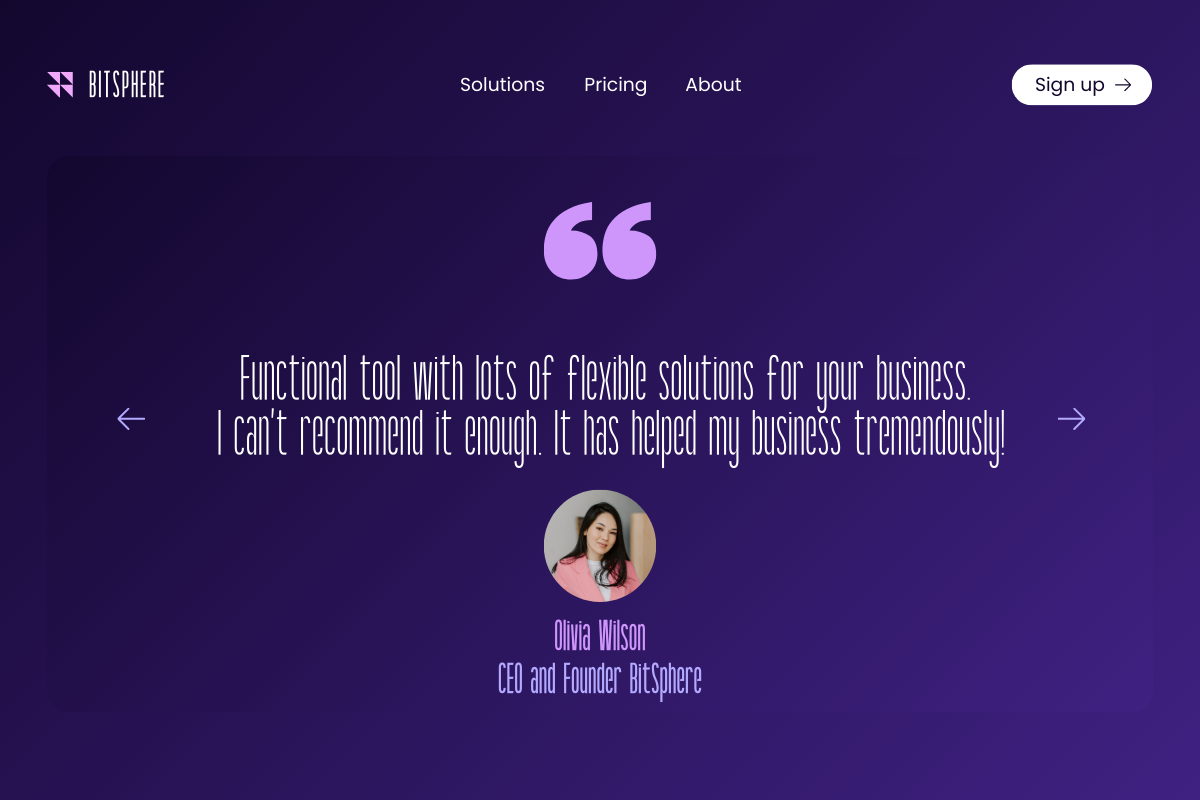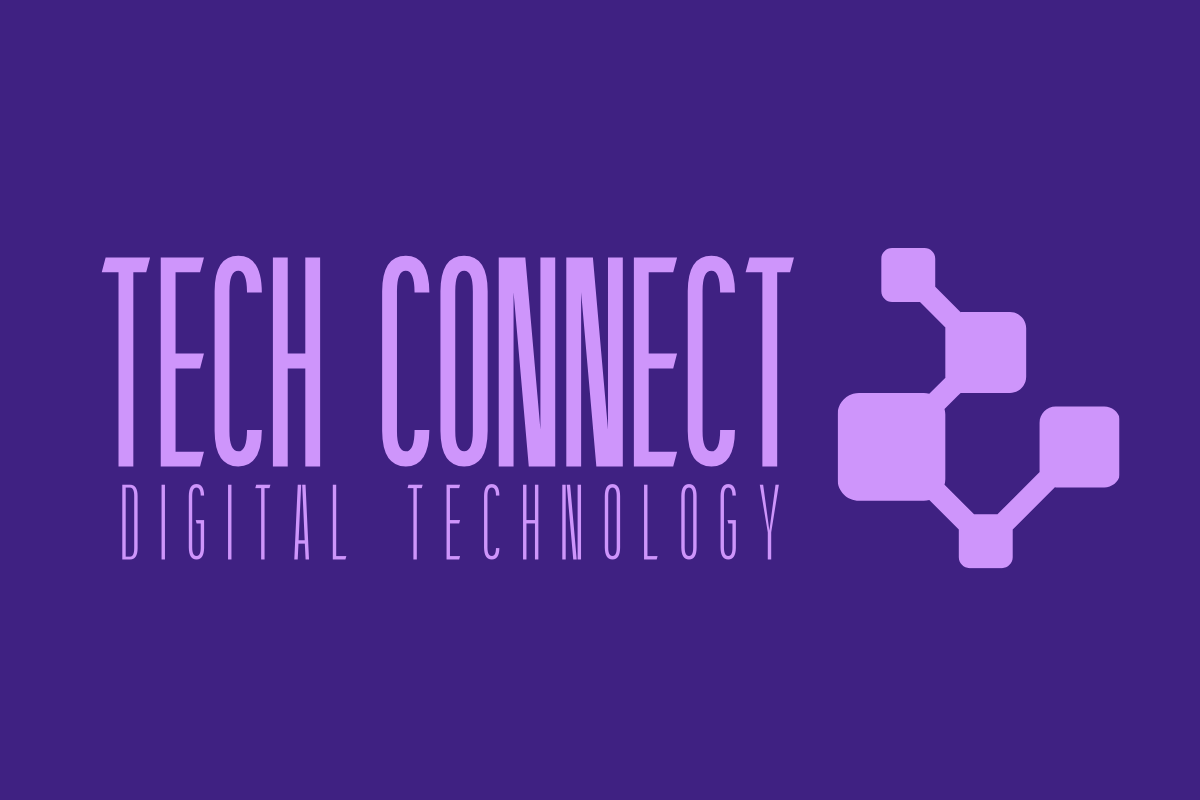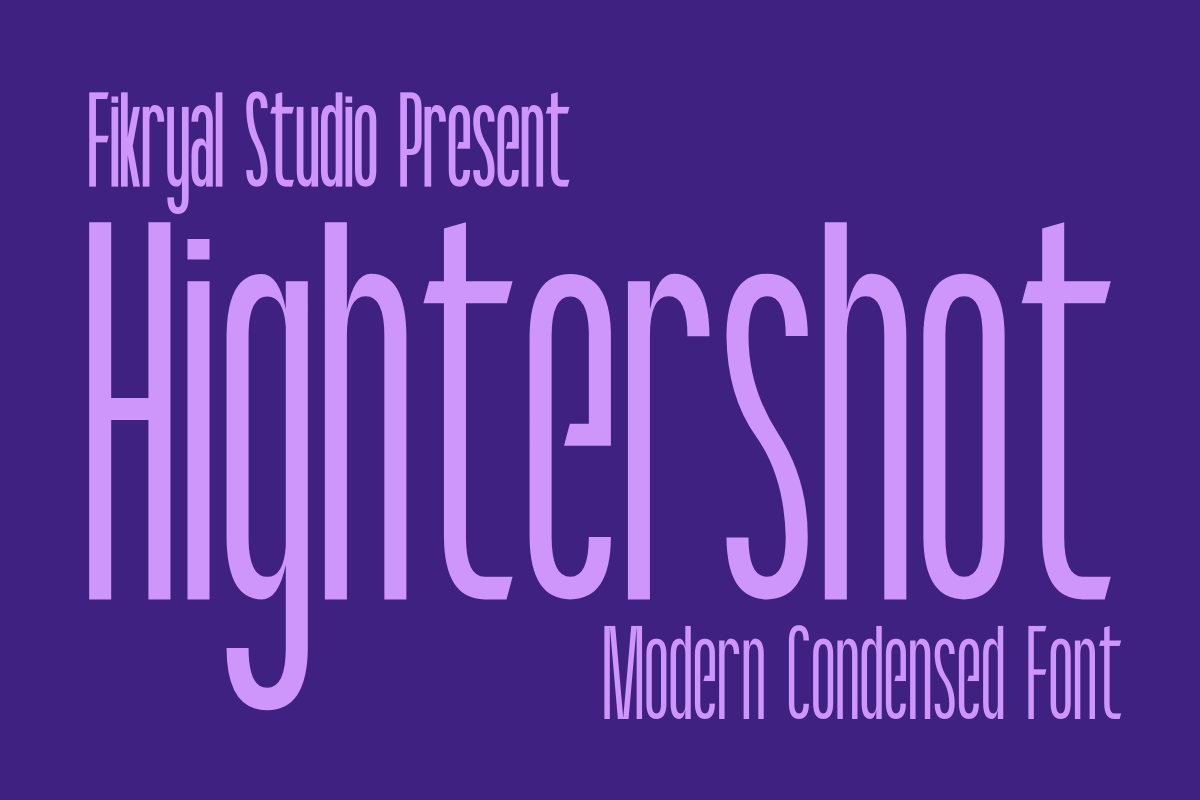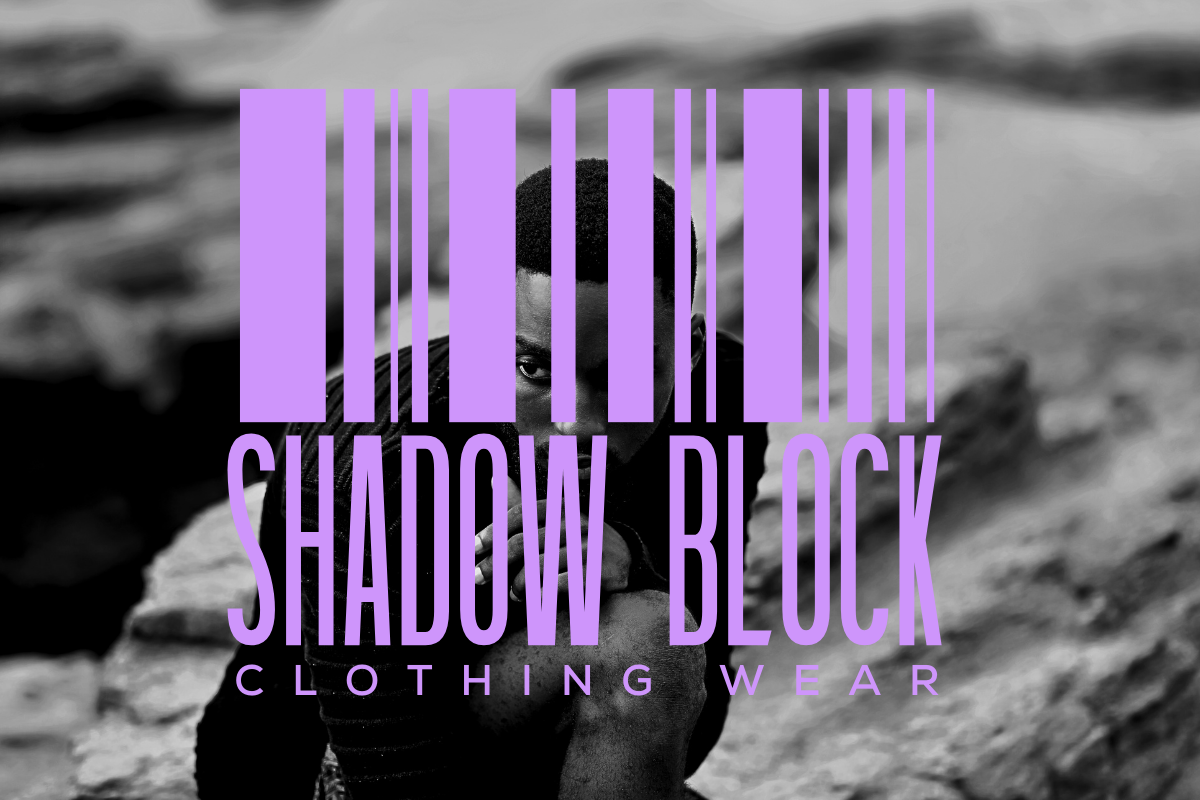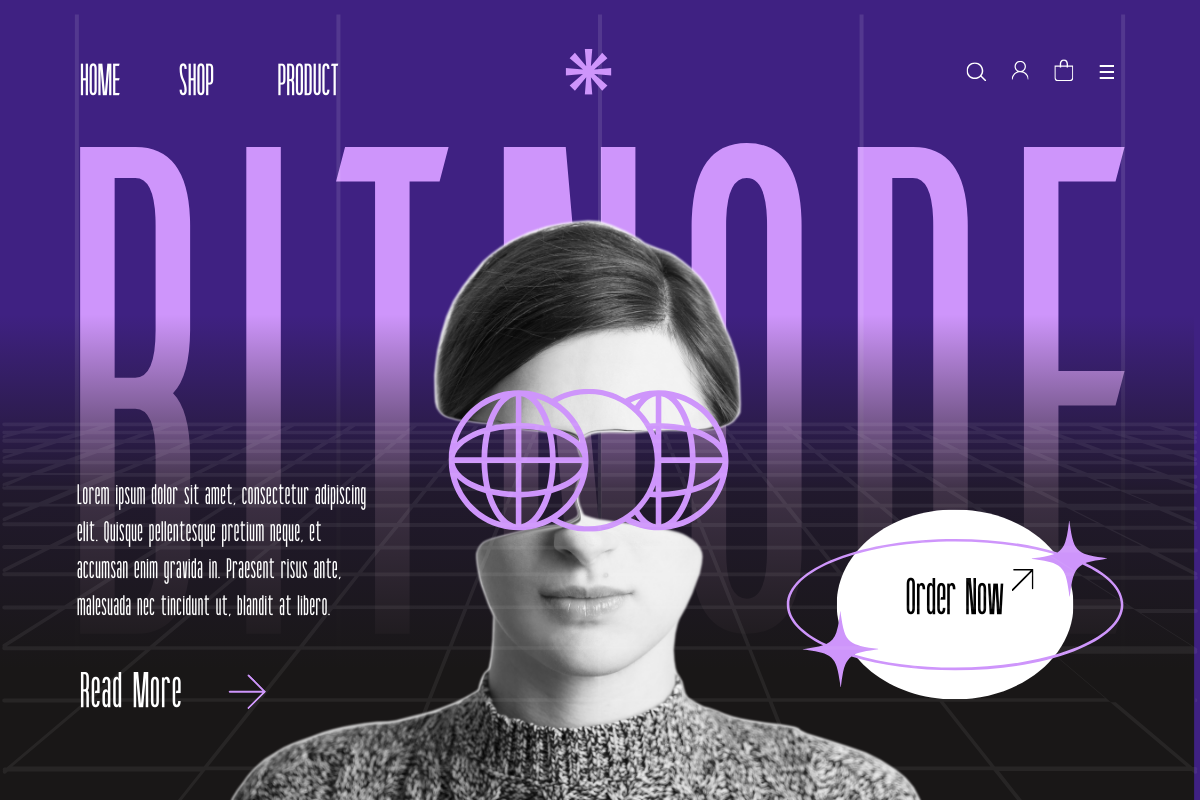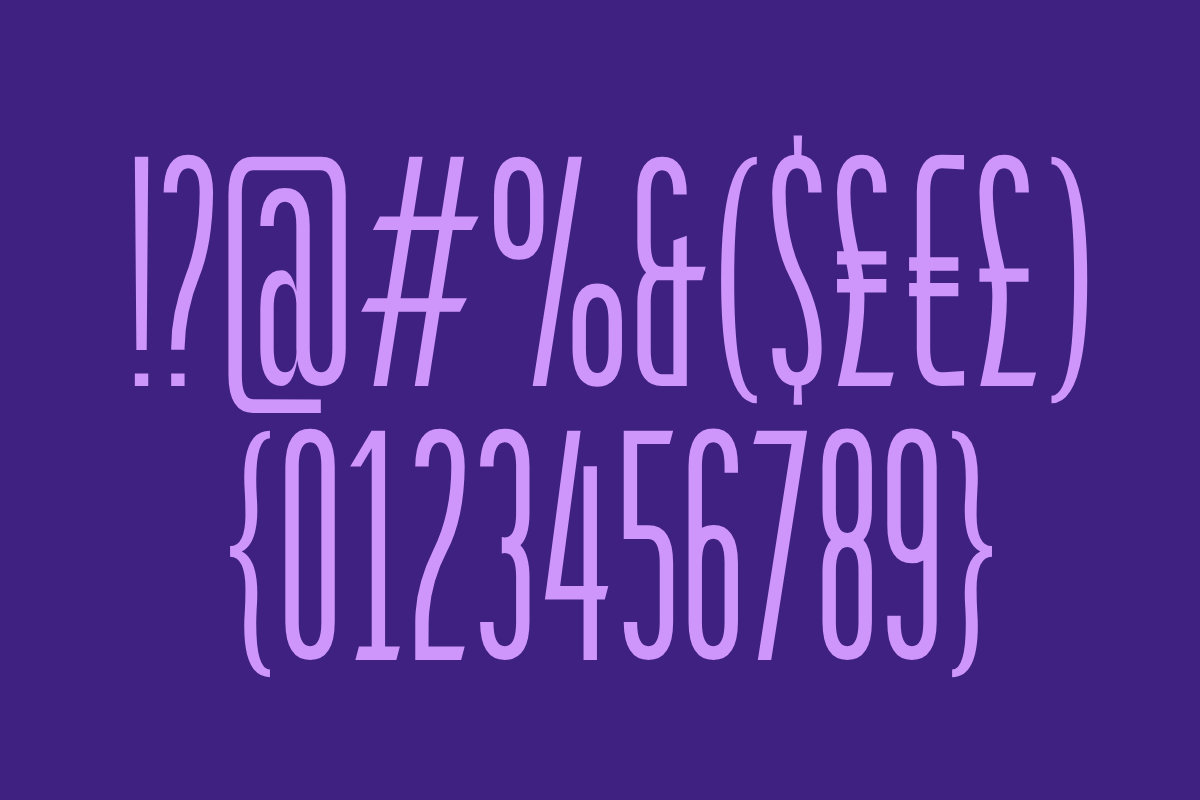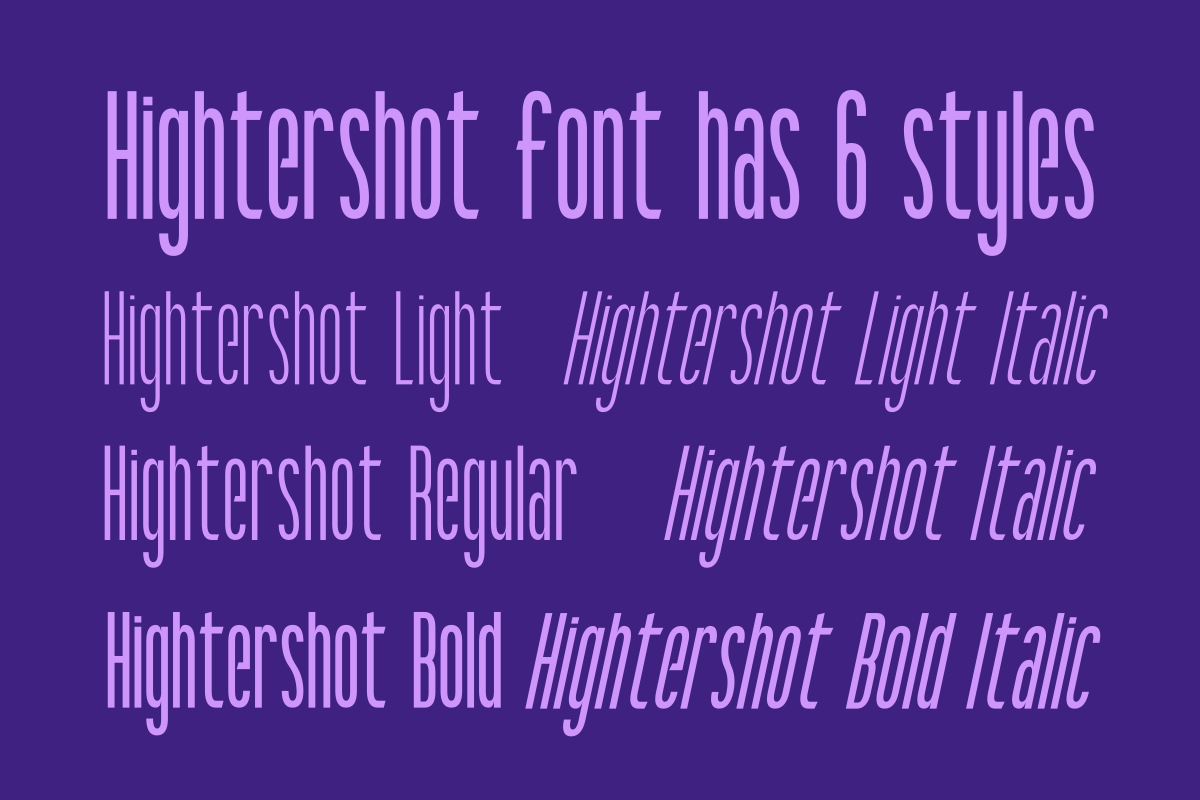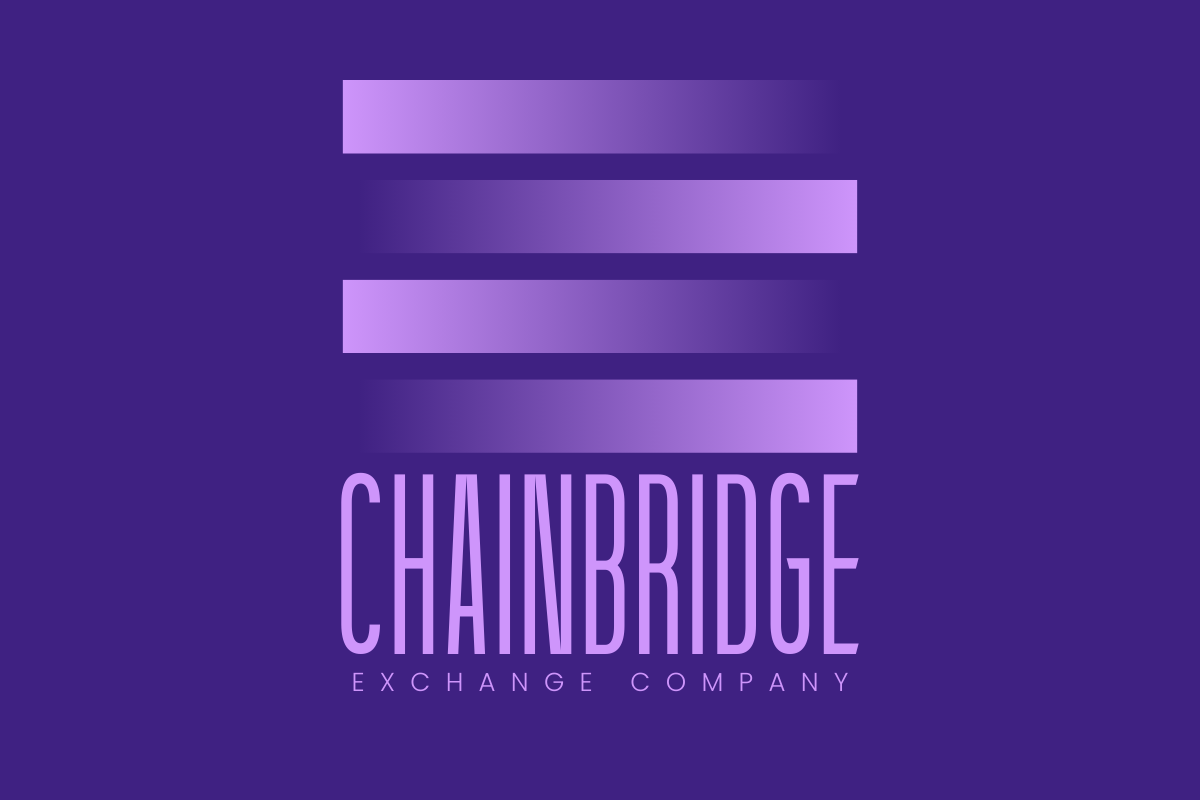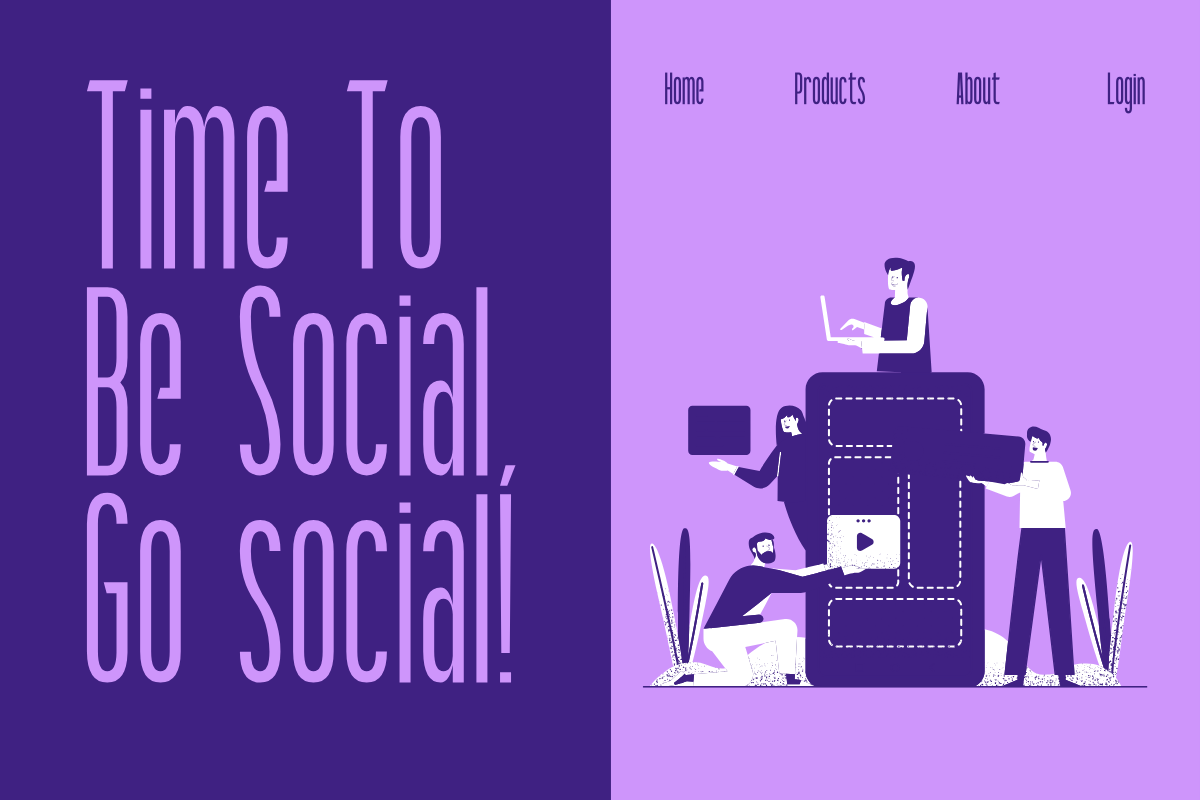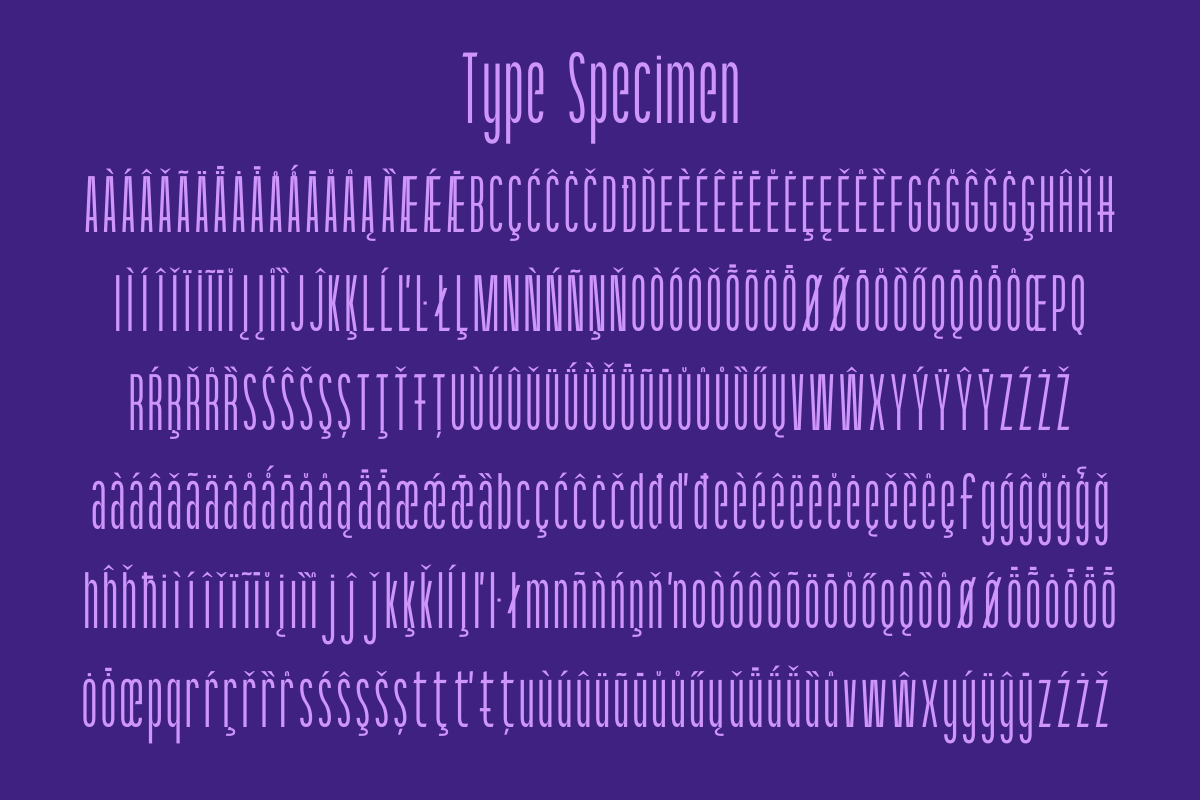
Hightershot – Modern Condensed Font
Hightershot – Modern Condensed Font is a sleek, contemporary typeface designed to complement futuristic design concepts. With its sharp, clean lines and minimalistic structure, Hightershot embodies the essence of modernity and forward-thinking aesthetics. The six distinct weights—light, light italic, regular, italic, bold, and bold italic—allow designers to explore different hierarchies and visual effects, making it a versatile choice for projects that aim to convey a cutting-edge, innovative feel.
Hightershot is especially suitable for futuristic design applications such as tech branding, sci-fi posters, digital interfaces, and sleek packaging. Its condensed and streamlined appearance enhances any layout that seeks to emphasize progress, technology, and a vision of the future.
Additionally, the font supports a wide range of multilingual languages, ensuring that it can be utilized globally without compromising on style or functionality. Hightershot’s modern and versatile qualities make it the perfect choice for designers looking to create impactful, future-oriented designs across various mediums.